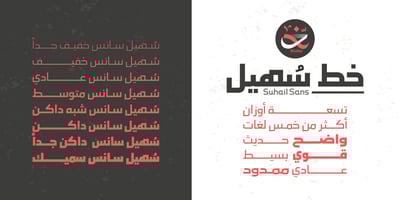
Suhail
Suhail font
Suhail Font Family was designed by Ali Almeethali and published by GHEEN Studio. Suhail contains 18 styles and family package options. Multilingual font includes more than five languages, including (Arabic, Latin, Persian and Urdu) with a solid base characterized by simplicity and letters with a geometric Kufic characterThe line has 18 weights for both types (normal, exbanded)The font also has the properties of OpenType, variable letters, and most of the symbols